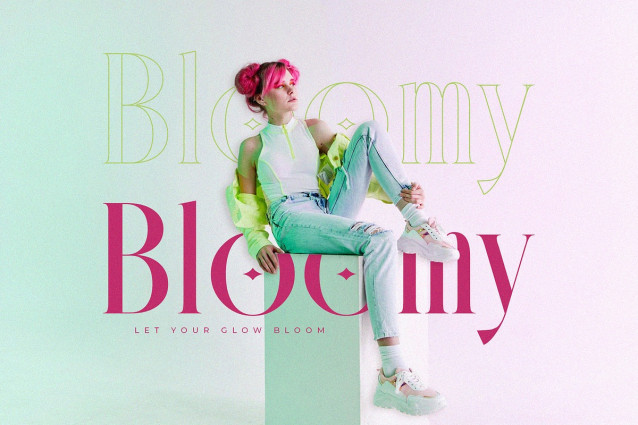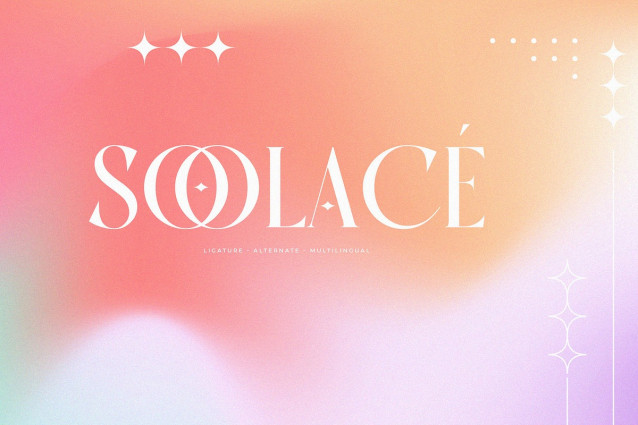
Roaming Glow Font
Roaming Glow Font is a modern and elegant serif font designed to capture visual imagination through expressive shapes and graceful detail. Featuring a complete set of uppercase and lowercase letters, as well as stylish alternates and ligatures, Roaming Glow brings a unique charm to editorial layouts, branding, packaging, and creative visuals that demand sophistication.
Inspired by cinematic flair and timeless typography, this typeface is ideal for designers who want to make a bold, artistic, and luxurious impression.